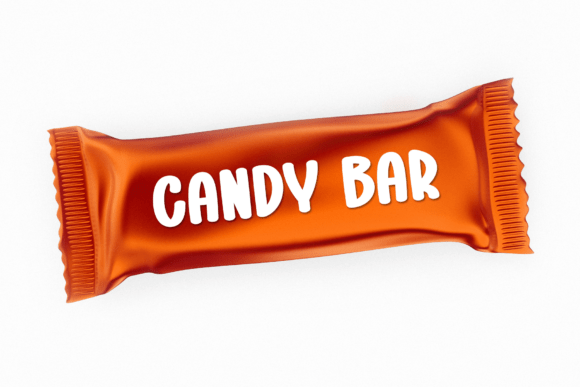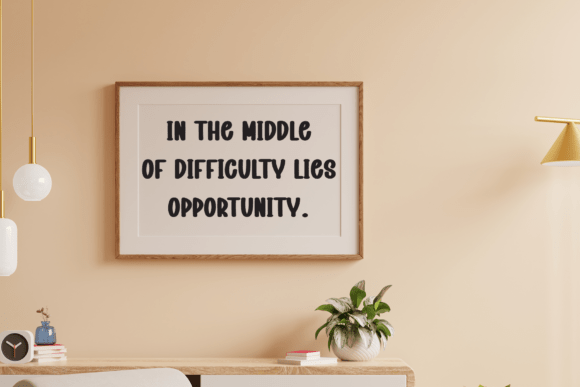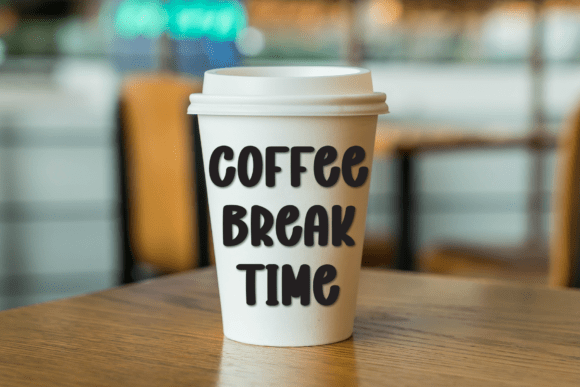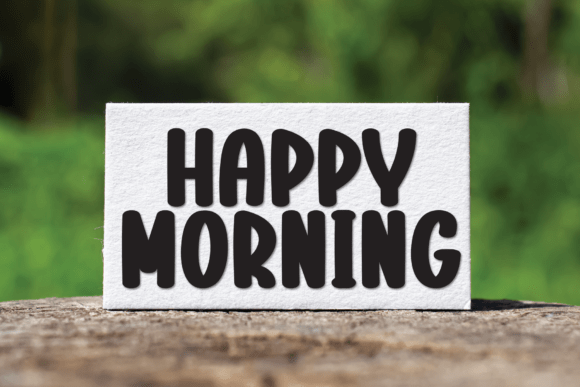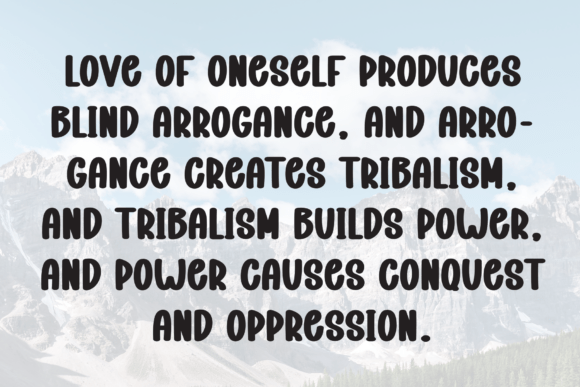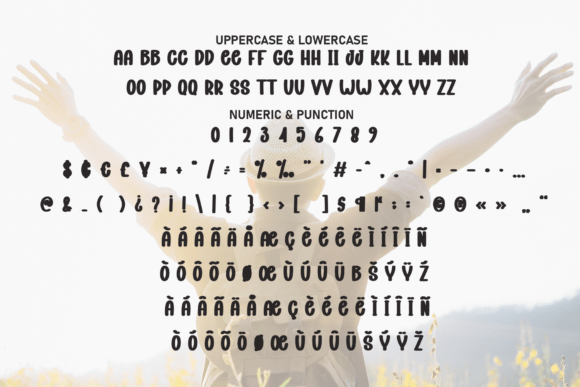
Introducing Funny Moment Font: The Perfect Blend of Whimsy and Readability
Are you tired of using fonts that are either too serious or too over-the-top? Look no further than Funny Moment Font, a casual and neat display font that’s designed to bring warmth and clarity to your projects. With its clean structure and approachable style, this font is perfect for branding, headlines, and everyday designs that need a touch of personality.
The Design Behind Funny Moment Font
Funny Moment Font is all about balance. The letterforms are carefully crafted to offer readability and charm, making every message feel genuine and inviting. The font’s clean structure ensures that it’s easy to read, even at smaller sizes, while its approachable style adds a touch of whimsy to any design. Whether you’re working on a logo, a headline, or a social media post, Funny Moment Font is the perfect choice.
What Makes Funny Moment Font So Versatile?
One of the things that sets Funny Moment Font apart is its versatility. It’s a display font that’s designed to be used in a variety of contexts, from branding and advertising to packaging and web design. The font’s balanced letterforms make it easy to use in both digital and print applications, and its clean structure ensures that it will look great on any device.
Funny Moment Font is a dream come true for designers and crafters who are looking for a font that’s both fun and functional. The font’s approachable style makes it perfect for designs that need a personal touch, such as handmade crafts, DIY projects, and small business branding. Plus, the font’s readability ensures that your message will get across clearly, whether you’re creating a logo, a poster, or a social media post.
How to Use Funny Moment Font in Your Designs
Using Funny Moment Font in your designs is easy. Here are a few ideas to get you started:
- Branding: Use Funny Moment Font as a logo font or as a typography font for your brand’s marketing materials.
- Headlines: Add a touch of whimsy to your headlines with Funny Moment Font.
- Social Media: Use Funny Moment Font to create eye-catching social media posts that will stand out in crowded feeds.
- Packaging: Add a personal touch to your packaging with Funny Moment Font.
- Crafts: Use Funny Moment Font to add a touch of personality to your handmade crafts and DIY projects.
Why Choose Funny Moment Font?
There are many fonts on the market that claim to be versatile and easy to use, but Funny Moment Font stands out from the crowd. Here are just a few reasons why:
- Unique Style: Funny Moment Font has a unique style that’s both fun and approachable.
- Readability: The font’s balanced letterforms ensure that it’s easy to read, even at smaller sizes.
- Versatility: Funny Moment Font can be used in a variety of contexts, from branding and advertising to packaging and web design.
If you’re looking for a font that’s both fun and functional, look no further than Funny Moment Font. With its clean structure, approachable style, and balanced letterforms, this font is perfect for designers and crafters who want to add a touch of personality to their designs. Whether you’re working on a logo, a headline, or a social media post, Funny Moment Font is the perfect choice. So why wait? Download Funny Moment Font today and start creating designs that are both whimsical and readable!
Key Features of Funny Moment Font
- Clean structure and approachable style
- Balanced letterforms for readability and charm
- Perfect for branding, headlines, and everyday designs
- Versatile and easy to use in a variety of contexts
- Unique style that’s both fun and whimsical
By incorporating Funny Moment Font into your designs, you’ll be able to add a touch of personality and whimsy that will set your work apart from the rest. So why settle for a boring, generic font when you can use Funny Moment Font to create designs that are both fun and functional?